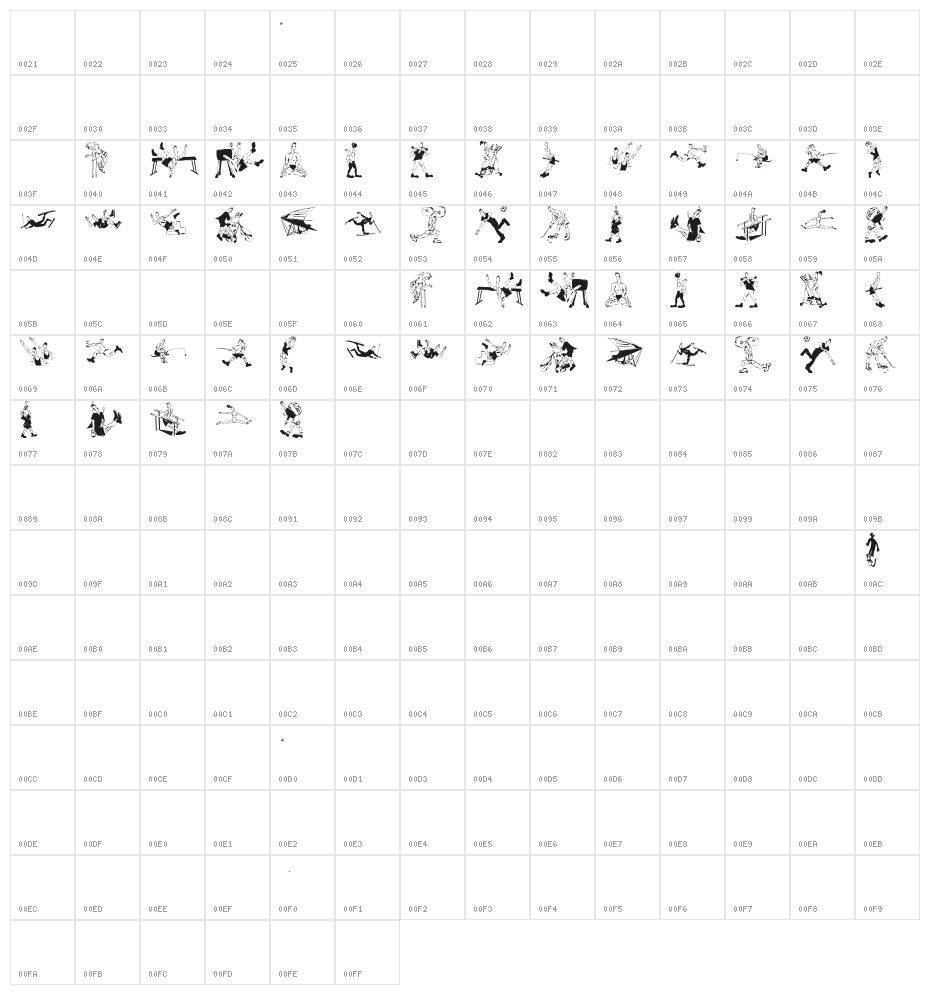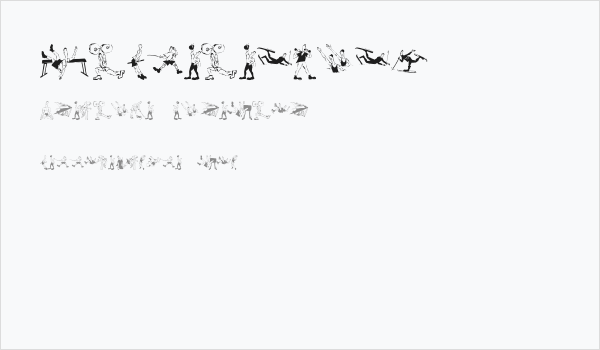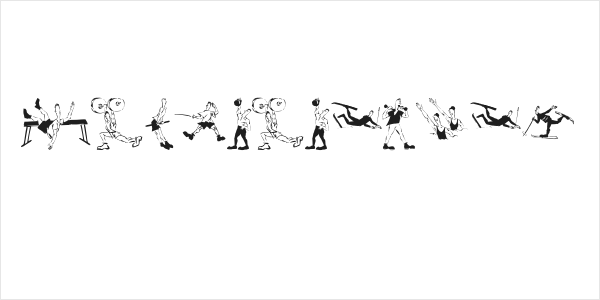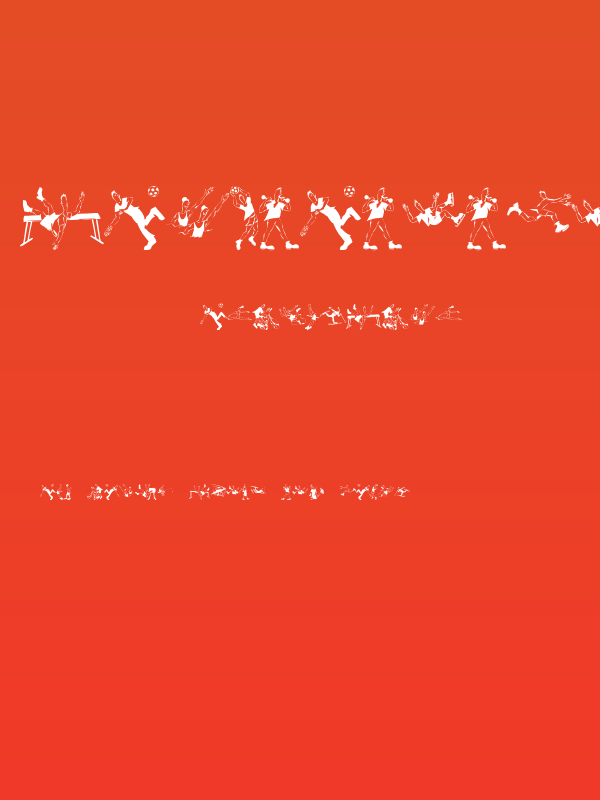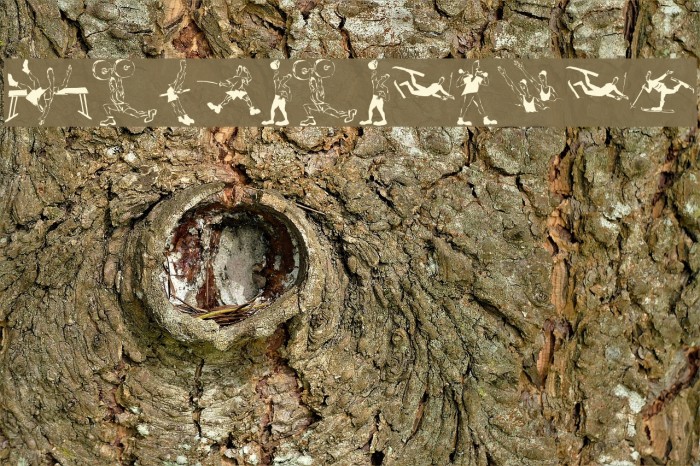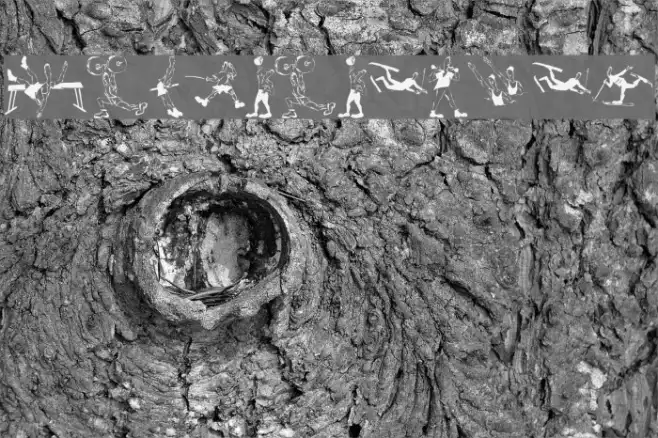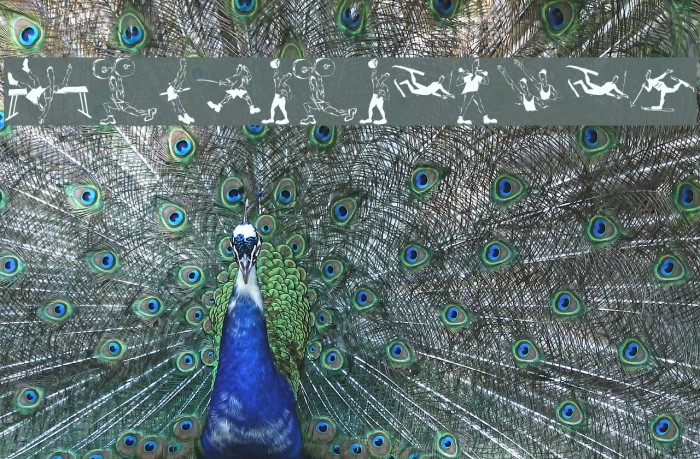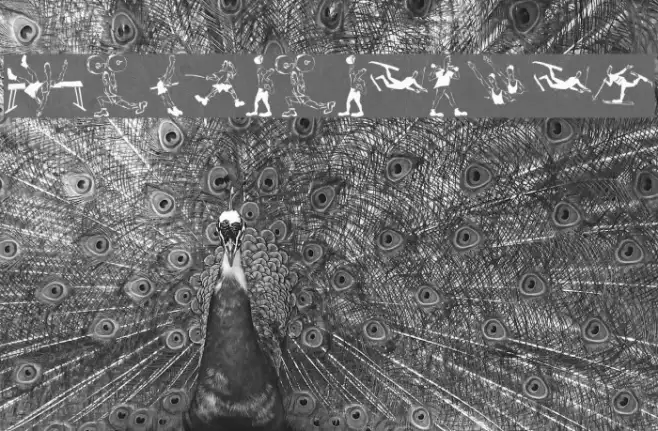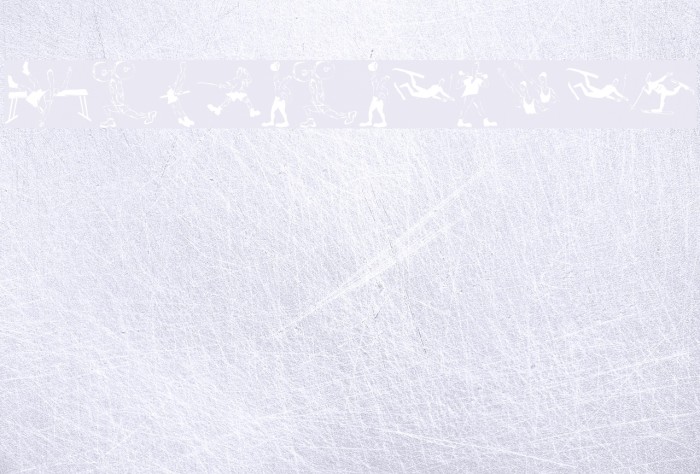
AthletenEins Font
AthletenEins Description
This is a highly creative and illustrative font where each character is represented by a unique athlete figure in action. The design is playful and dynamic, capturing various sports and athletic movements. Each letter and number is depicted through a different sport, making it visually engaging and full of energy. This font is not suitable for body text due to its complex and illustrative nature but can be a great choice for thematic designs related to sports or fitness.
| Use Case | Logos, Headlines, Posters |
| Proposed Projects | Ideal for sports event posters, fitness-themed graphics, children's sports books, and playful branding for athletic products. |